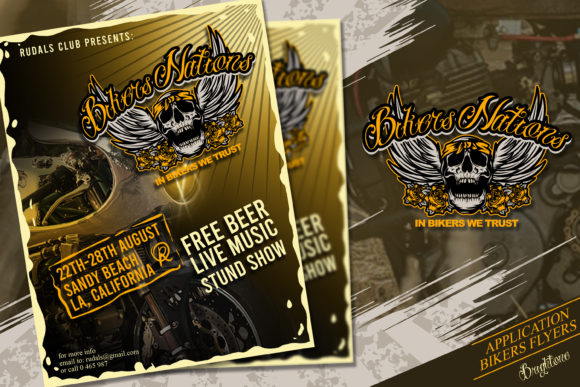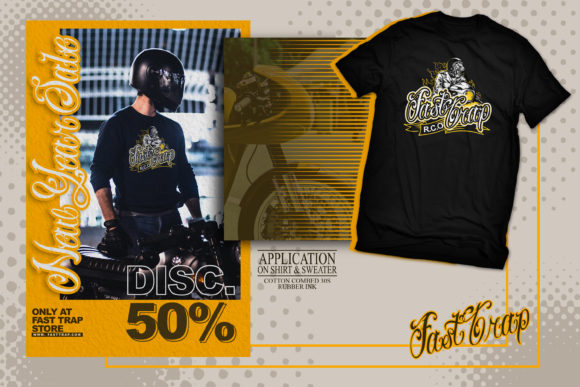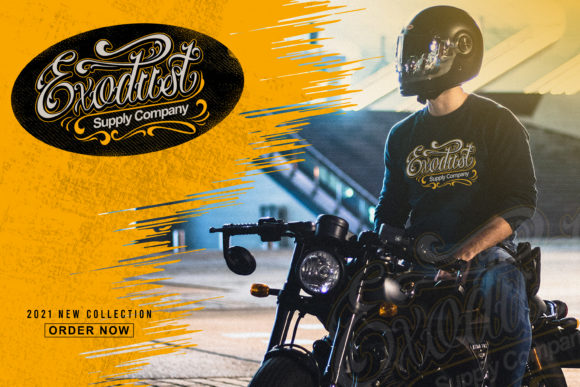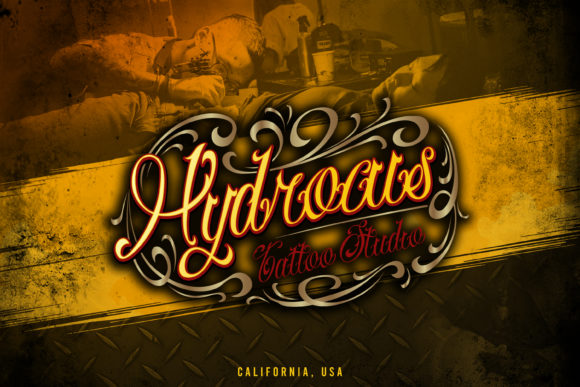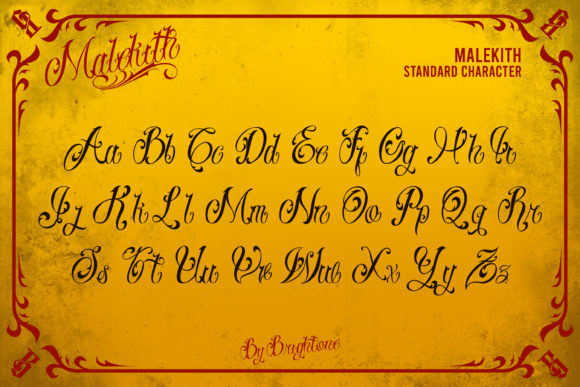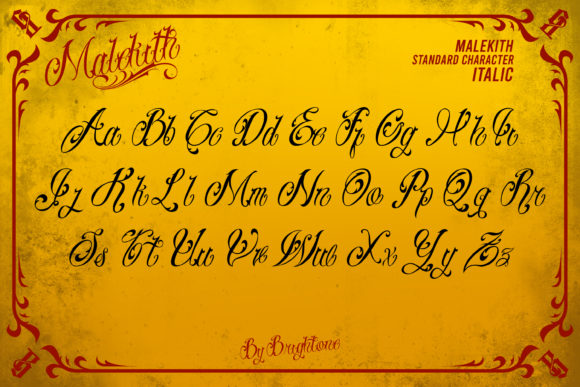
Introduction to Malekith Font
Have you ever found yourself staring at a blank canvas, waiting for the perfect spark to ignite your creative project? The blank page can be intimidating, but sometimes all it takes is the right tool to set your imagination ablaze. For designers, the right font can make all the difference in bringing a concept to life. One such game-changer is the Malekith Font, an elegant and imposing handwritten font that is sure to elevate any design.
This beautifully crafted font boasts a high level of detail, making it a valuable addition to any design library. Whether you’re working on a project with a transparent background or need a design resource that exudes sophistication, Malekith Font is sure to impress. With its free download option, you can easily incorporate it into your next creative project and experience the magic of this stunning font for yourself.
So, what makes Malekith Font so special? Let’s dive in and explore the world of this incredible design resource.
Key Features of Malekith Font
- Unique, high-quality design resource ideal for creative projects
- Transparent background allows for seamless integration into designs
- High-resolution fonts suitable for print and digital applications
- Available in a range of styles and weights, offering versatility for designers
- Designed to be a valuable addition to any design resource library
Honest Review: Malekith Font
I recently came across the Malekith Font and I’m excited to share my thoughts on it. This free download has been a game-changer for my creative projects. With a transparent background, it’s perfect for adding a touch of elegance to any design.
- High-quality design: The Malekith Font is incredibly detailed and looks stunning on any project.
- Limited language support: Unfortunately, the Malekith Font only supports a limited number of languages, which may be a problem for designers working on international projects.
- Not suitable for large-scale use: While the font is perfect for small projects, it may not be the best choice for large-scale designs due to its limited licensing options.
Overall, I’m really impressed with the Malekith Font. Its high quality and ease of use make it a valuable resource for any designer. While it may have some limitations, it’s still a great choice for most creative projects.
Tips for Getting the Most Out of Malekith Font
For the best results, use Malekith Font in conjunction with a transparent background to create a seamless design. Experiment with different font sizes and styles to add depth and visual interest to your project.
Malekith Font is perfect for a variety of creative projects, including graphic design, typography, and branding. Its high quality and transparent background make it an ideal choice for designers looking for a free download to elevate their designs.